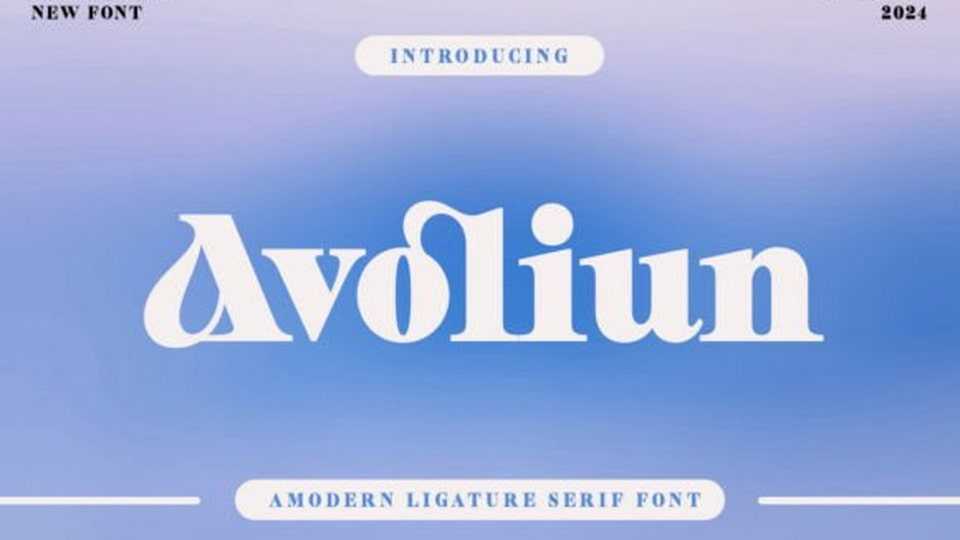
Download Avoliun font, a serif typeface with a modern and elegant style, featuring clean lines and sleek design with readable yet attractive characters.